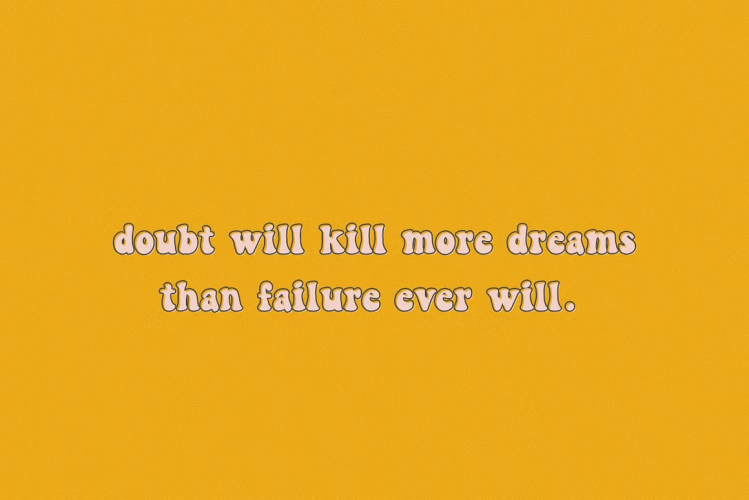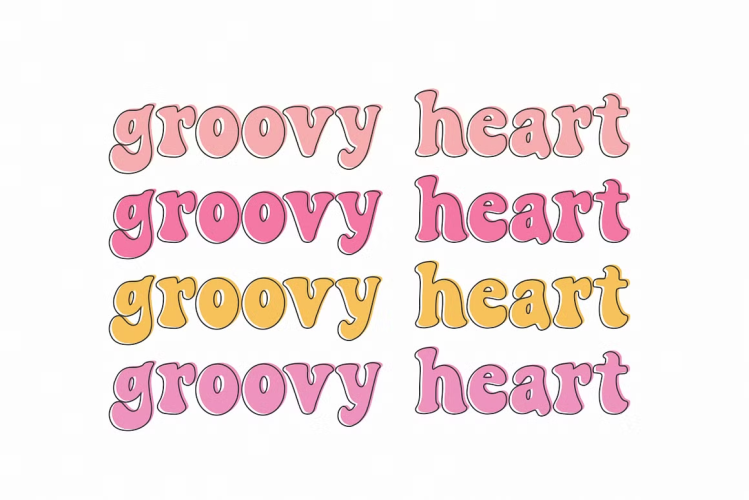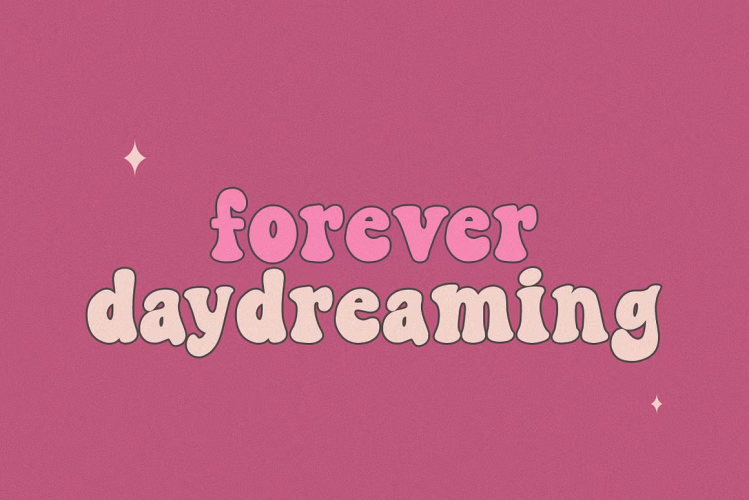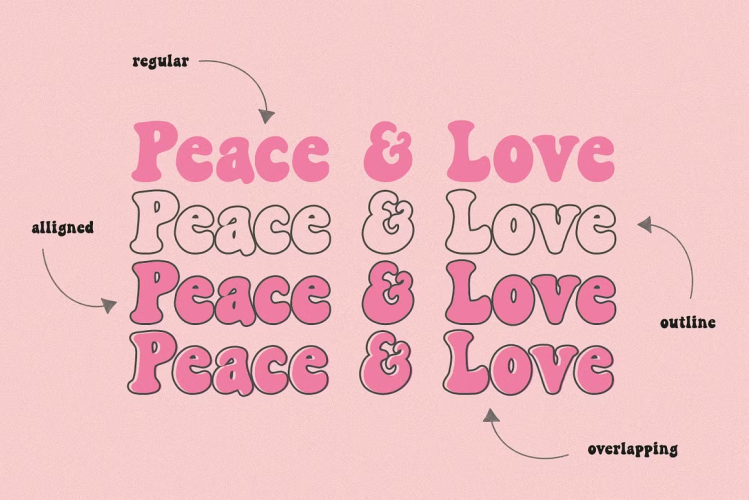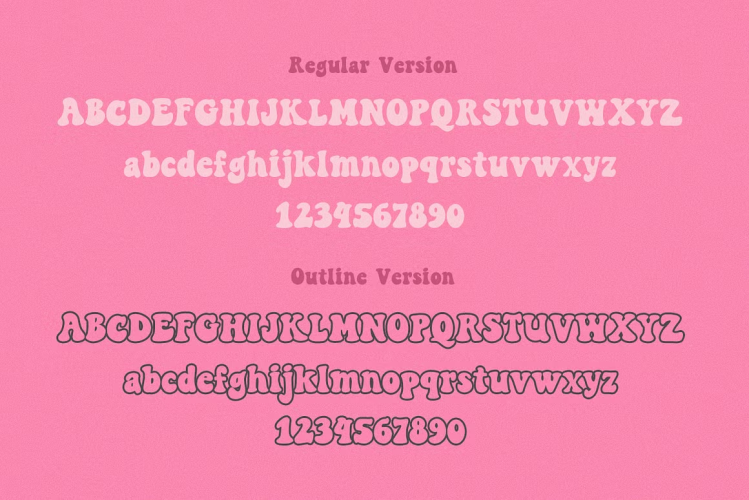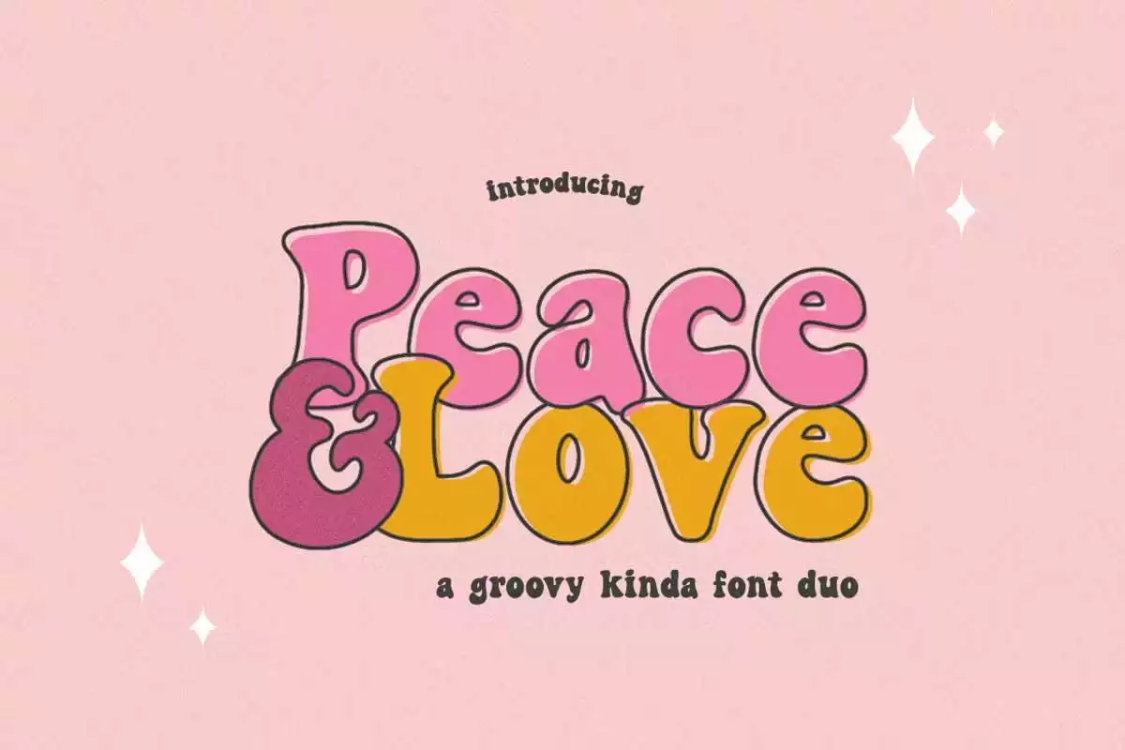
Peace & Love Font
The Peace & Love Font manifests as a groovy style that captures the quintessence of an era about seeking peace and love. In its joyful curves and lively stroked lines, this font is just the same as the tie-dye shirts, flower power, and the sounds of psychedelic music leap across the page.
Every letter possesses a surreal aura of fluidity, like it is dancing to its beat out of this world. The simple shapes and friendly serifs give an erosion of playfulness and freedom, which reminds us of the times when individuality and self-expression were highly appreciated.
Employing Peace & Love Font allows us to return to the time of peace marches, love-ins, and counterculture movements. It makes us think of the times when we profoundly believed that love had the power to turn the world upside down.
Where Peace & Love Font works best
Peace & Love Font is built for size: event posters, hero headlines and billboard-style layouts.
High contrast display type like Peace & Love Font reads instantly in thumbnails and motion graphics.
What is Peace & Love Font good for?